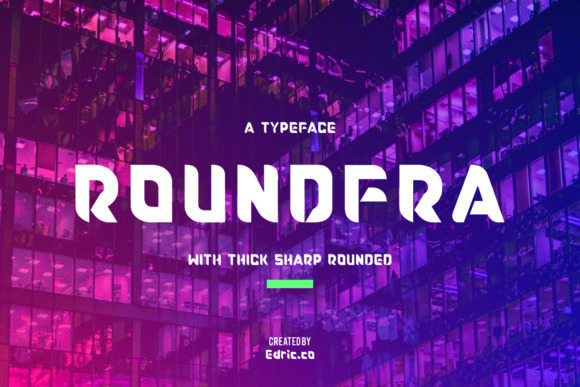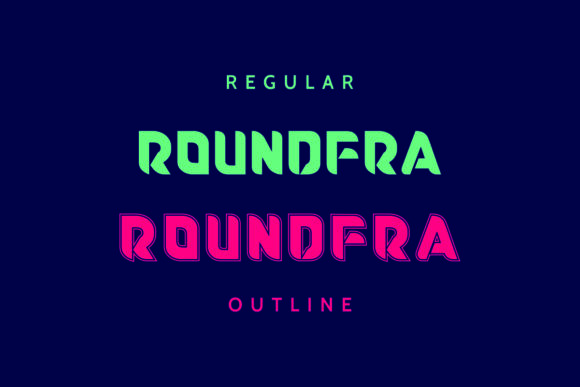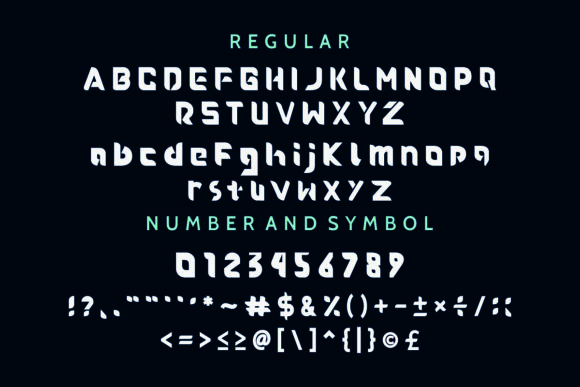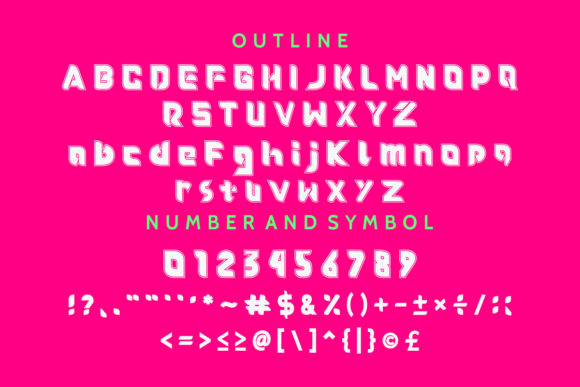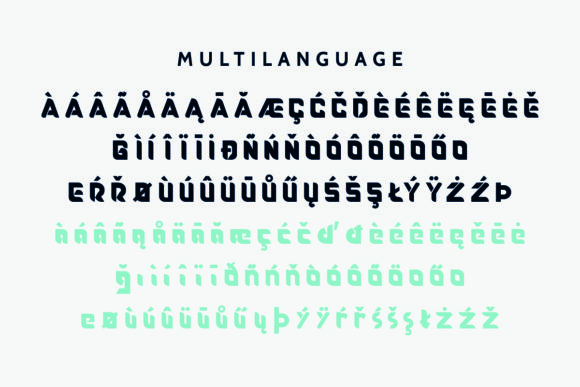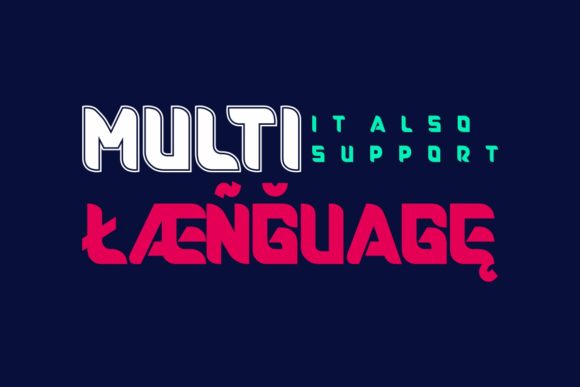
Introduction to Roundfra Font
Roundfra is a beautiful and sweet sans serif font with an incredible feel.
Use it to turn any design idea into a true standout .
Key Features of Roundfra Font
Why Choose Roundfra Font?